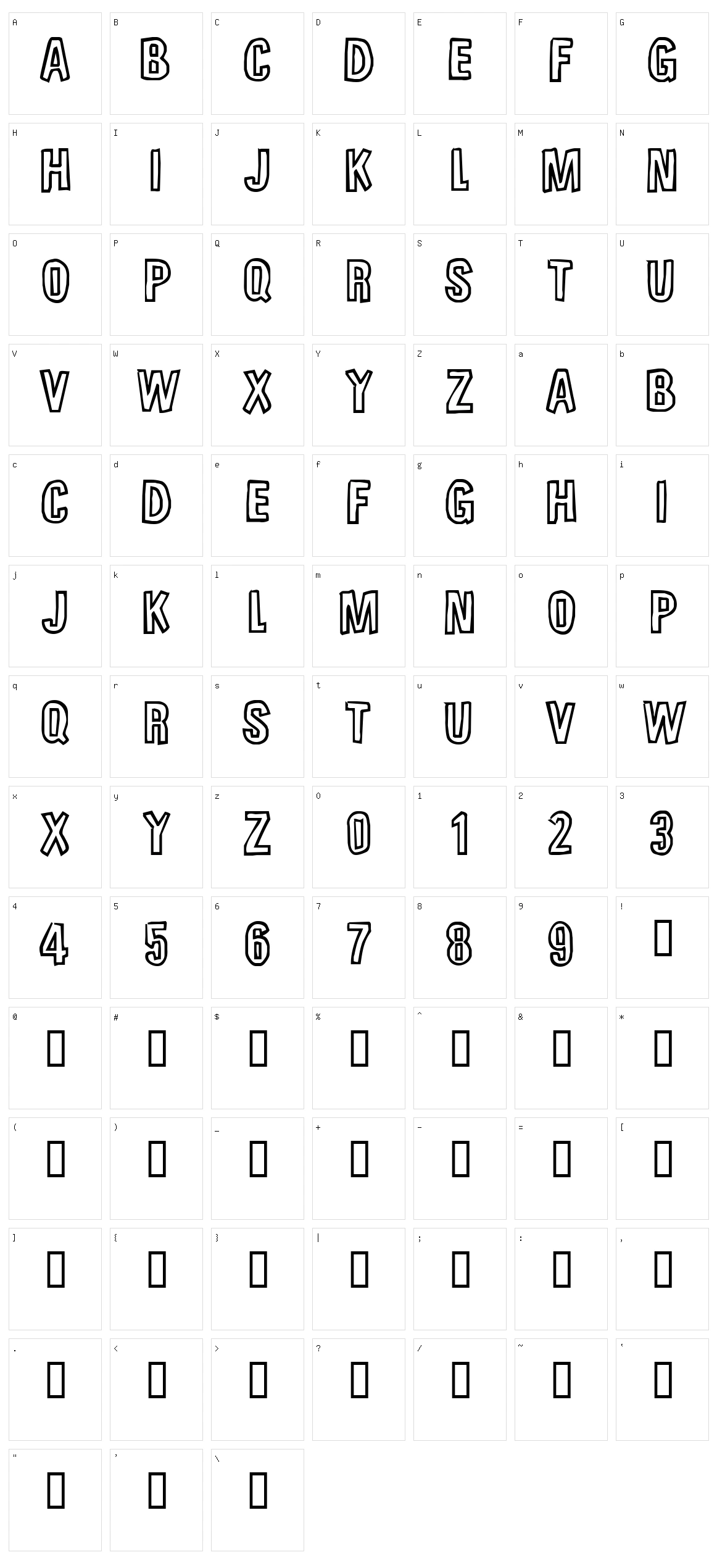
The free font Unfinished Sympahthy is carefully designed by Pizzadude, showcasing a thoughtful balance of creativity and usability and falls under the Cartoon font style. When you download the ZIP file, it contains only 20.88 KB of font files, making it lightweight and quick to download. Please review the license details below to understand permitted usage and distribution rights. If license information is not available, we recommend using this font for personal projects only or contacting the author directly for commercial usage permissions.